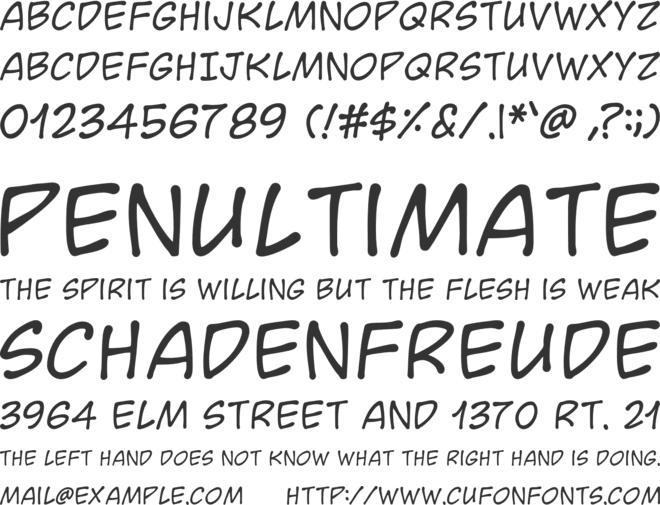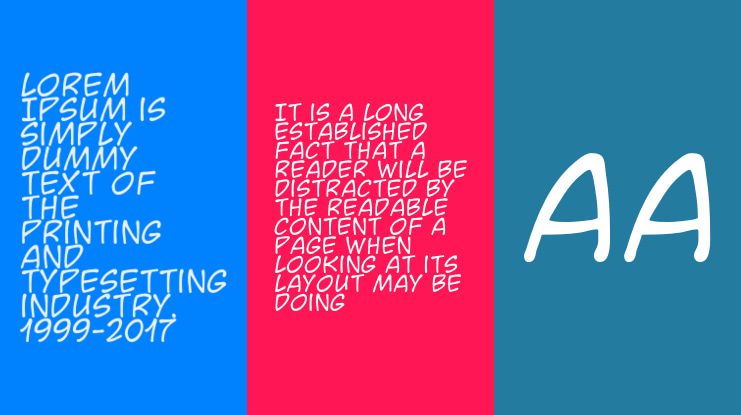
Heroika (Namikus) Font Family
Namik Mardakhaev
The full basic Cyrillic and Latin alphabet is supported, as well as some of the extended Cyrillic and Latin alphabet (Kazakh, Chuvash, Latvian, Spanish, Portuguese, and so on).
A fresh free font for comics. Dynamic. The font is based on a manuscript by the artist Albert De Guzman. He has worked on hundreds of comic books, including various Batman, Aquaman, Teen Titans, Birds of Prey, and more.